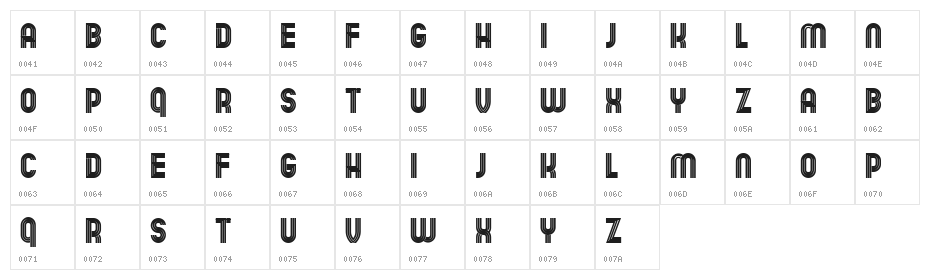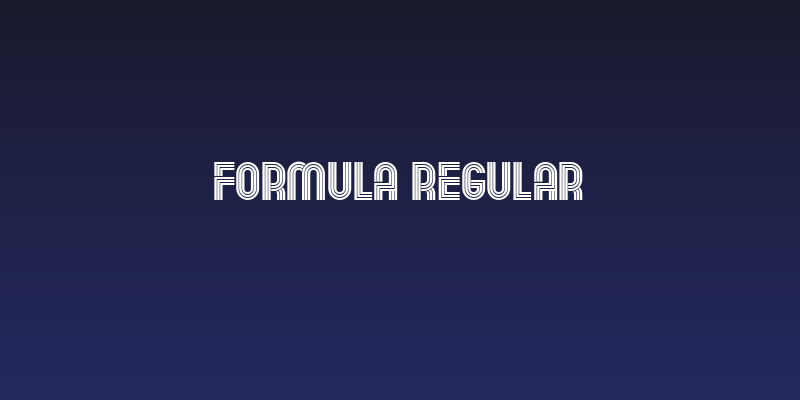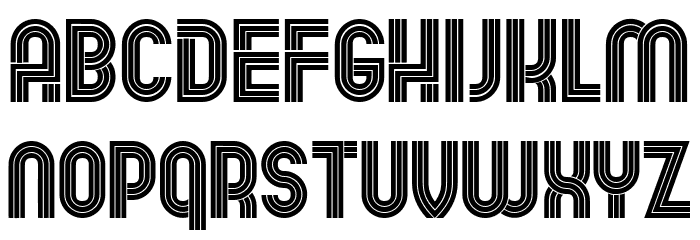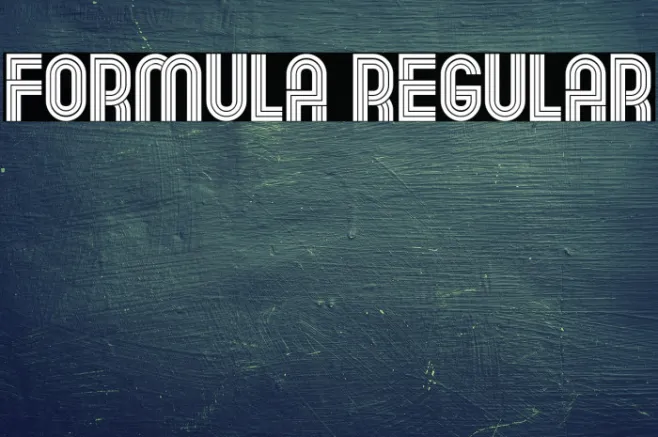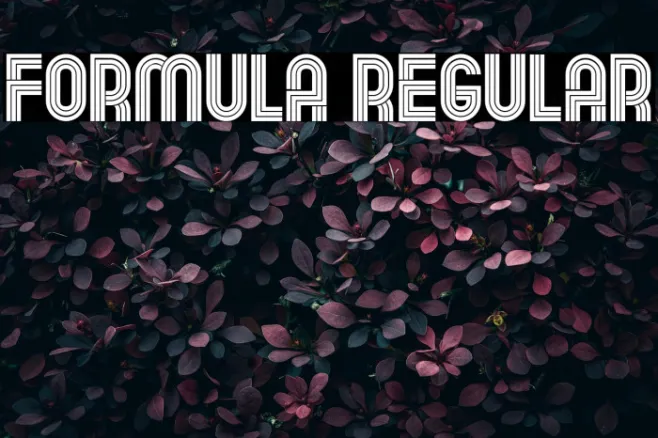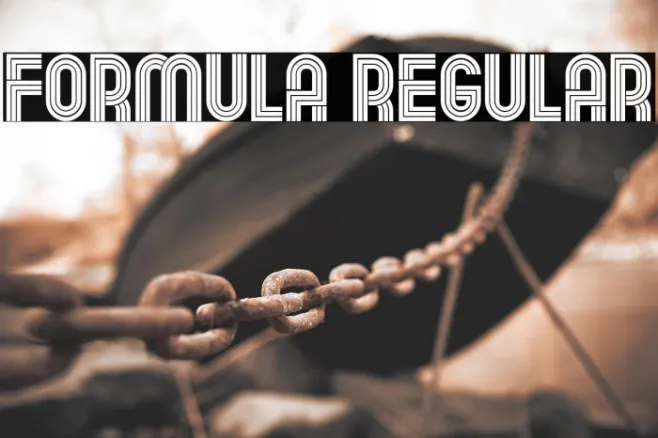
Formula Regular Font
Formula Regular Description
This font features a bold, geometric design with a distinct multi-line pattern that creates a sense of depth and movement. The letters are constructed with parallel lines that form a cohesive and structured appearance, making it ideal for eye-catching designs. The uppercase letters are uniform in height and width, contributing to a balanced and harmonious look. The font's unique style is both modern and retro, reminiscent of art deco influences, which adds a touch of elegance and sophistication. Its intricate line work makes it suitable for projects that require a strong visual impact.
| Proposed Projects | Perfect for posters, logos, branding, and editorial design where a bold statement is needed. |